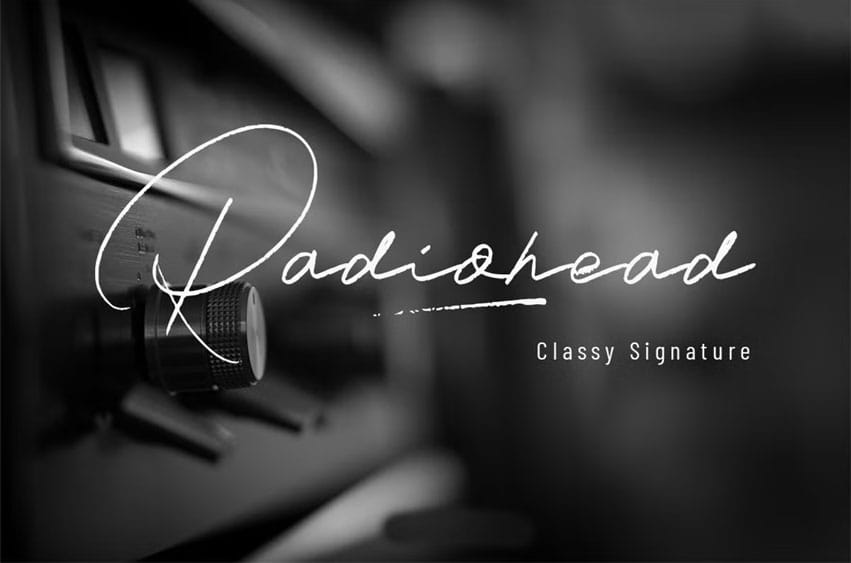
Radiohead Font is a modern font perfect for branding, invitation, stationery, wedding designs, social media posts, advertisements, product packaging, product designs, label, photography, watermark, special events or anything.
Radiohead comes with full set of uppercase and lowercase letters, ligatures, multilingual symbols, numerals and punctuation.